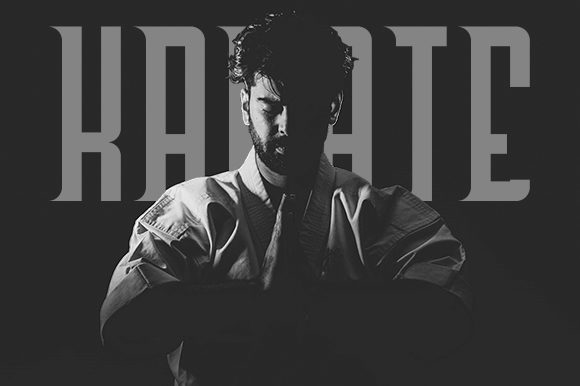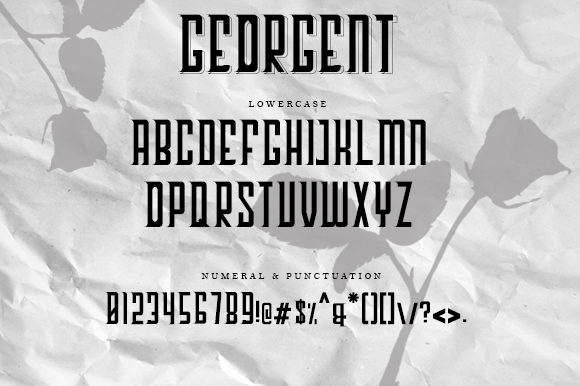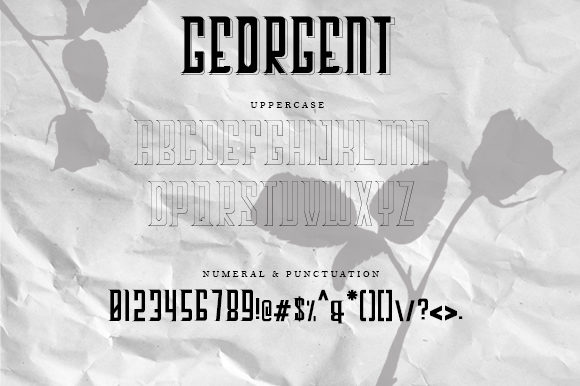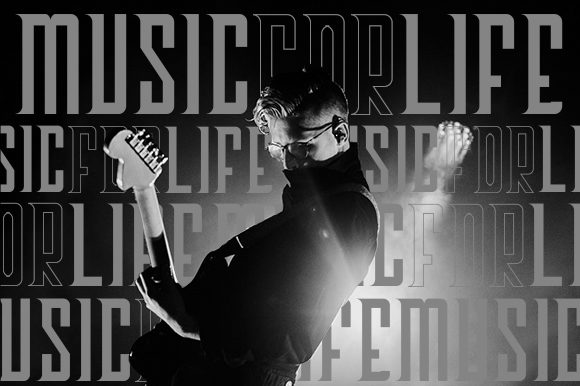
Introducing Georgent Font: The Ultimate Display Font for Stunning Designs
Are you tired of using the same old fonts for your design projects? Look no further! Georgent Font is here to revolutionize your designs with its bold, strong, and timeless feel. This stunning display font is perfect for crafters, designers, and anyone looking to add a touch of sophistication to their work.
The Power of Georgent Font
Georgent Font is a bold and strong display font that exudes confidence and elegance. Its unique design makes it perfect for headlines, titles, and any other text that needs to stand out. Whether you’re working on a logo, brochure, or website, Georgent Font is sure to turn your design project into an eye-catcher.
Timeless Appeal
One of the standout features of Georgent Font is its timeless appeal. Unlike trendy fonts that quickly go out of style, Georgent Font has a classic look that will never go out of fashion. Its bold and strong design ensures that your work will remain relevant and stylish for years to come.
Georgent Font is a versatile font that can be used for a wide range of design projects. Whether you’re a professional designer or a crafter, this font is perfect for:
- Headlines and titles
- Brochures and catalogs
- Websites and social media graphics
Key Features of Georgent Font
So, what makes Georgent Font so special? Here are some of its key features:
- Bold and strong design: Georgent Font is perfect for making a statement with your text.
- Timeless appeal: This font has a classic look that will never go out of style.
- High-quality design: Georgent Font is designed with precision and attention to detail, ensuring a high-quality finish.
- Easy to read: Despite its bold design, Georgent Font is easy to read, even at small sizes.
Here are some tips for using Georgent Font:
- Use it sparingly: Georgent Font is a bold font, so use it sparingly to avoid overwhelming your design.
- Pair it with other fonts: Georgent Font looks great when paired with other fonts, such as sans-serif fonts or script fonts.
- Experiment with different sizes: Georgent Font looks great at large sizes, but it can also be used at smaller sizes to add emphasis to your text.